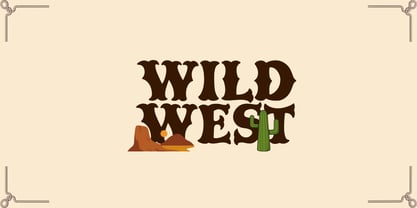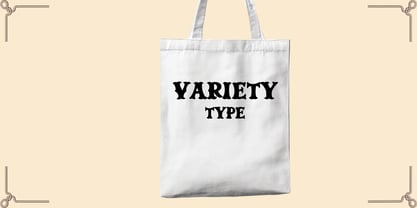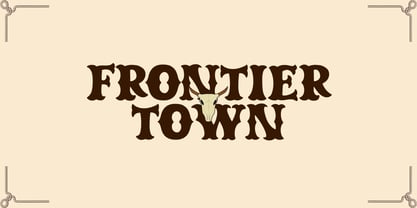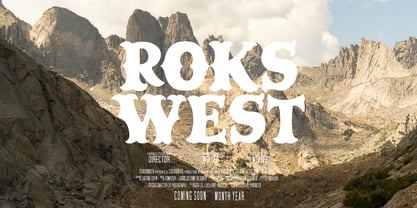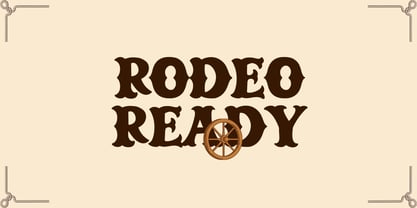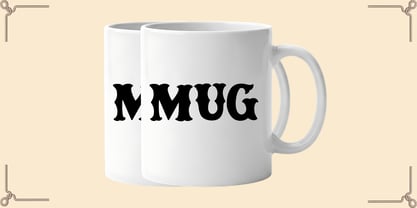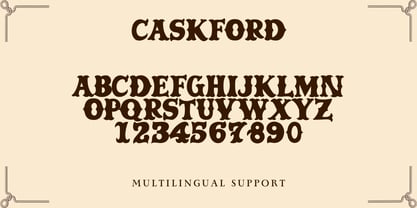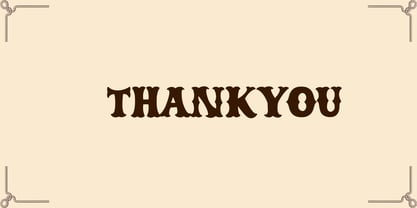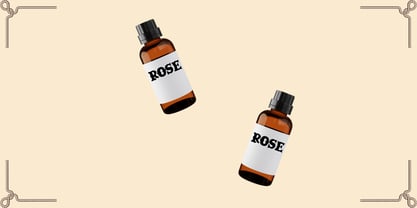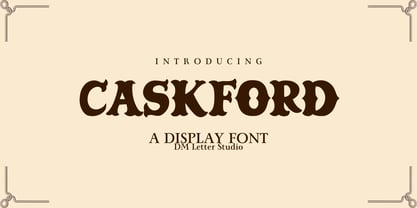
Caskford
von DM Studio
Die Schriftfamilie Caskford wurde von Dimas Prasetyo entworfen und von DM Studio veröffentlicht. Caskford enthält 1 Stile. Mehr über diese Familie
Meet Caskford, the Vintage Old Western Font Caskford is a vintage old western–style font inspired by classic saloon signs, frontier posters, and hand-painted lettering from the Wild West era. The letterforms feel bold, rugged, and confident, with strong shapes that command attention. Because the strokes stay solid and well-balanced, Caskford remains readable at both small sizes and large headlines. Use it for western logos, whiskey labels, bar signage, posters, apparel, packaging, and rustic branding. As a result, your designs instantly carry an authentic, old-time character. Why Caskford Western Font sells First, it installs easily and works smoothly in Canva, Photoshop, Illustrator, and most design apps. Next, the sturdy outlines cut and print cleanly for vinyl, laser, stickers, and screen printing. Then layouts come together faster because the letter shapes feel consistent and purposeful. Moreover, Caskford pairs perfectly with simple serif or neutral sans fonts, helping you create balanced designs with a strong focal point. Therefore, it’s ideal for western-themed brands and vintage-inspired products. Fast layouts with the Caskford Font Start with short, bold words and let the font do the talking. After that, add supporting text in a clean font to keep everything readable. Because Caskford has a strong presence, it works especially well in badges, arches, and stacked layouts. In addition, it shines on labels, stamp-style marks, and rustic frames. Finally, try color pairs like tobacco & cream, black & bone, rust & sand, or forest & tan to lock in the western mood. Creative uses and quick wins Old western logos, saloon signs, and brand badges Whiskey, beer, coffee, and craft product labels Posters, flyers, and event headlines T-shirts, hats, stickers, and merchandise Design tips for Caskford Western Font Keep text bold and confident to match the western spirit. Also, add a subtle texture or distressed overlay for an aged look. For print projects, try kraft paper or uncoated stock to enhance the vintage feel. Finally, export at 300 DPI for print and at 2× size for web so details stay sharp everywhere.
Designer: Dimas Prasetyo
Foundry: DM Studio